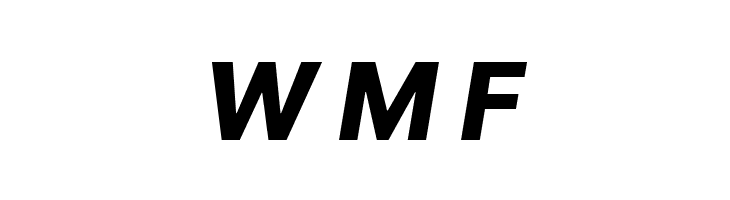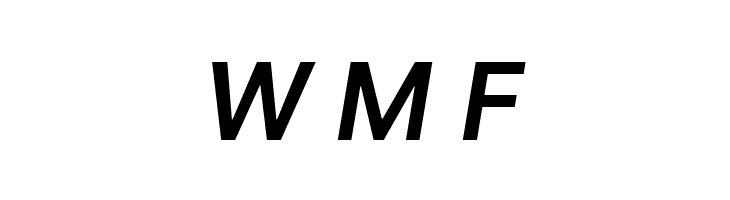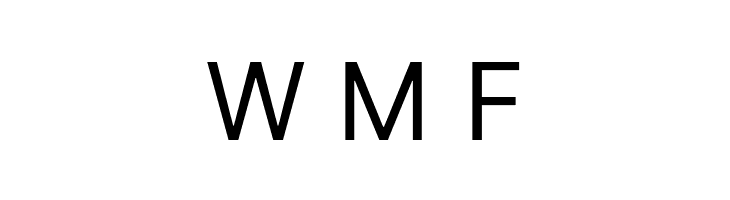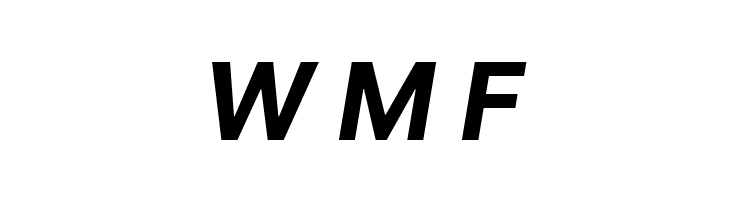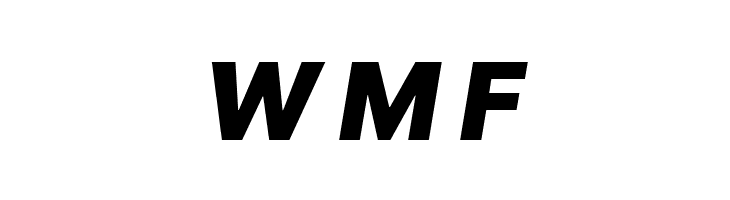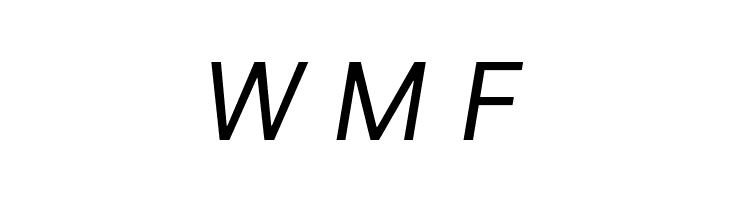
A light, italic, modern sans-serif font with smooth strokes and normal spacing.
A modern, italic sans-serif font with balanced proportions and clear readability.
A sleek, modern, and thin italic font with elegant strokes.
A bold, modern sans-serif font with thick strokes and clear characters.
A modern, light sans-serif font with clean lines and balanced spacing.
A modern, semi-bold italic sans-serif font with medium contrast and normal spacing.
A bold, modern sans-serif font with thick, uniform strokes for high legibility.
A clean, modern sans-serif typeface with uniform stroke width and excellent readability.
A modern, extra light sans-serif font with clean lines and geometric structure.
A modern, thin sans-serif font with clean lines and balanced spacing.
A modern, clean sans-serif font with uniform strokes and balanced proportions.
A clean, modern sans-serif font with balanced proportions and excellent readability.
A bold, modern sans-serif font with clean lines and geometric shapes.
A sleek, modern sans-serif font with an extra-light italic style.
A modern, italic sans-serif font with clean lines and excellent readability.